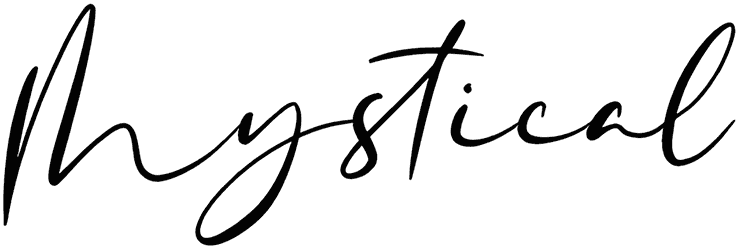
Mystical Font
This Mystical font is designed naturally as if someone wrote it with a pen by hand. This naturalness and illegibility allow this hand-written font to be one of the most used in luxury brands, such as perfumes, watches, or magazine covers. A calligraphy font like this will bring more professionalism and authority to your designs since this font has a classic design.
Designed by: Azcreative Studio